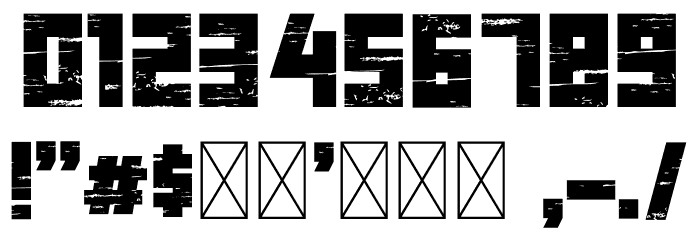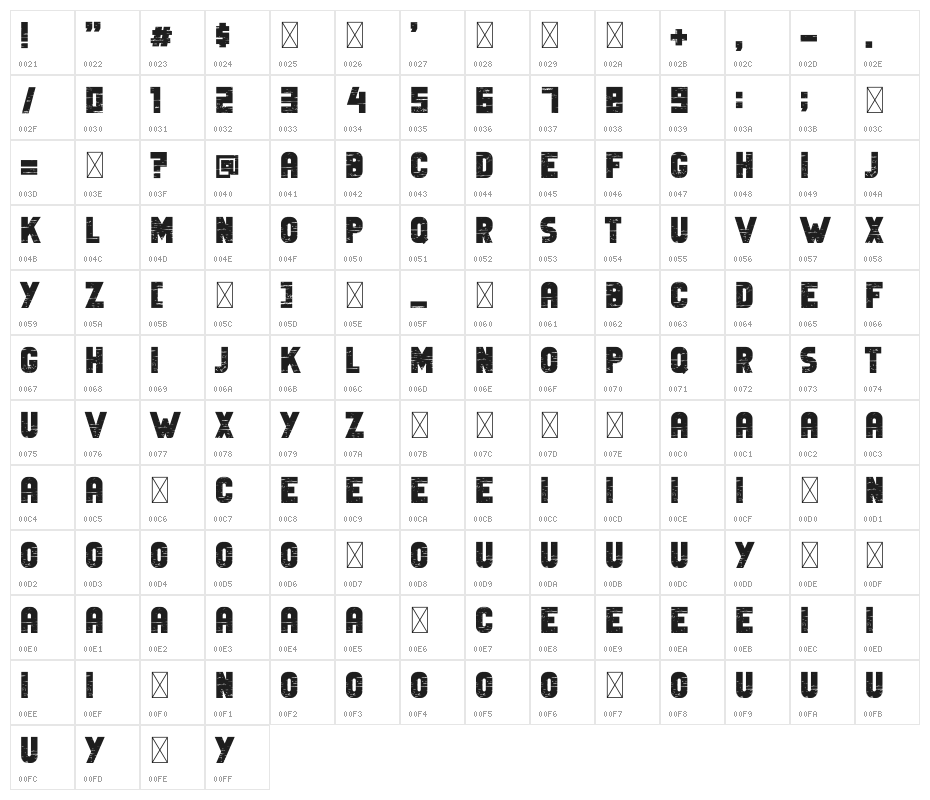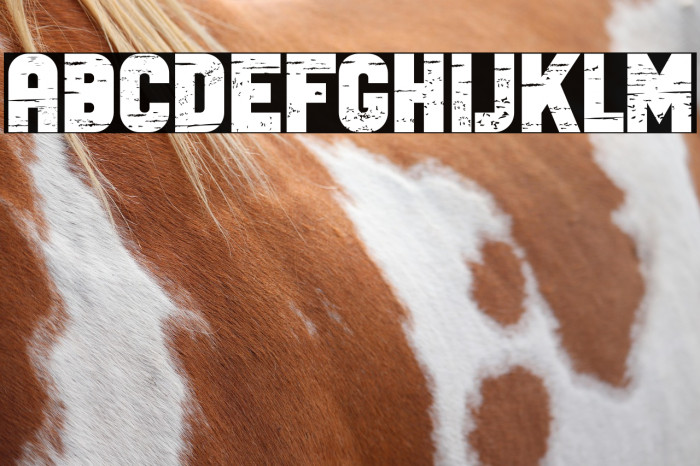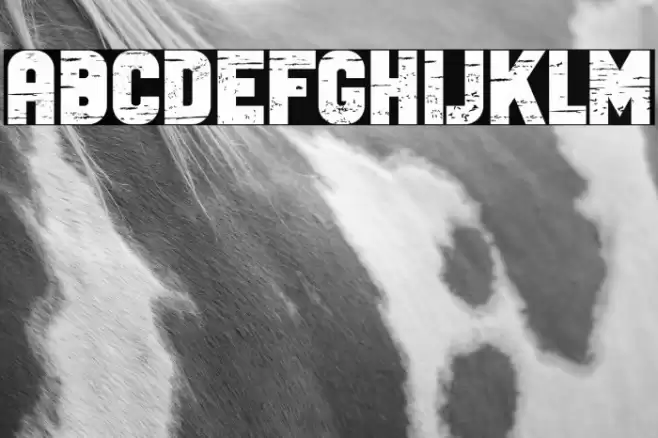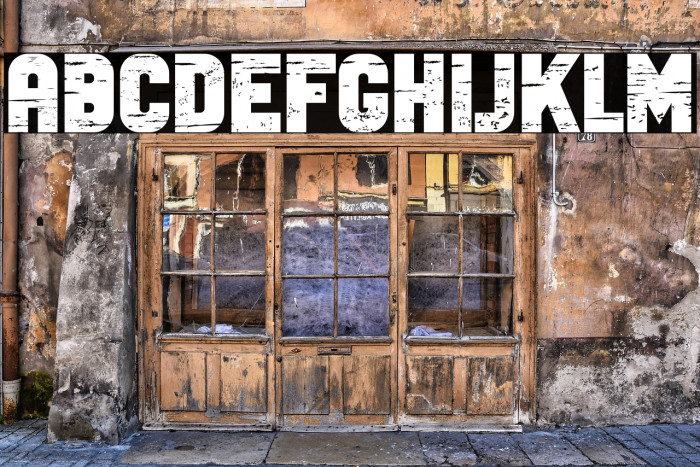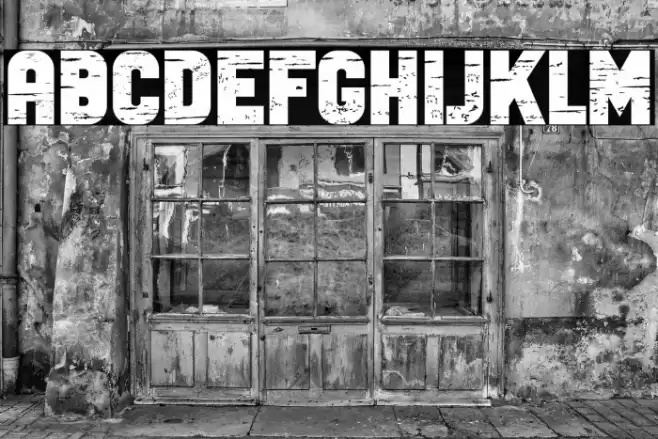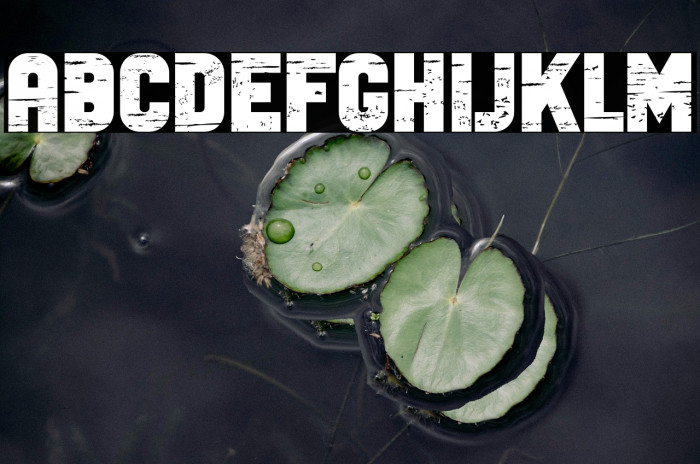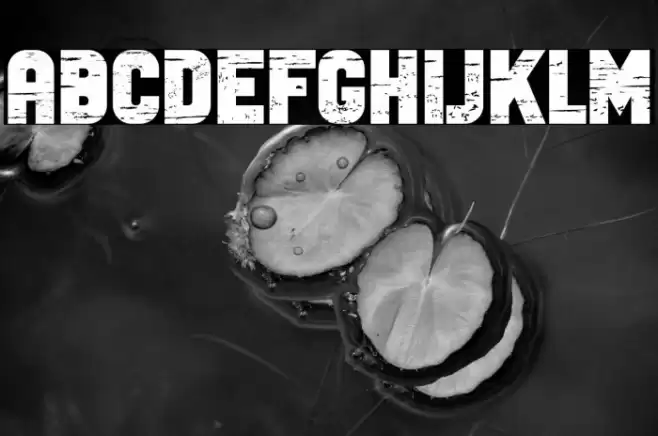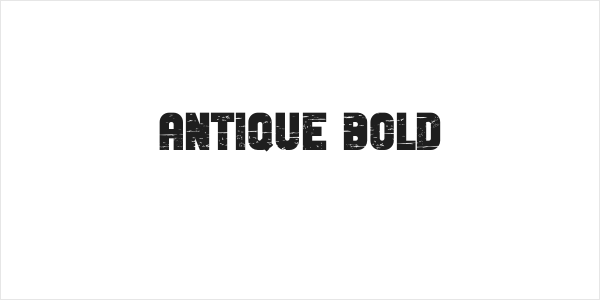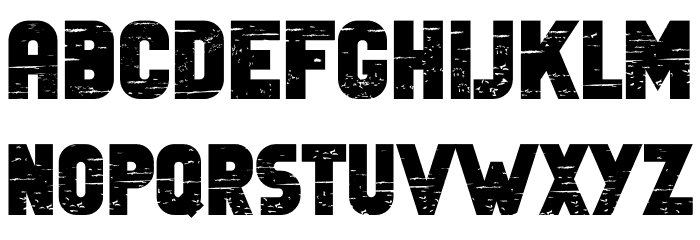
Antique Bold Font
Antique Bold Description
This font features a bold, distressed style with a vintage appeal. The characters are blocky and robust, with a weathered texture that gives them an aged, rustic look. The uppercase letters are prominent and commanding, while the numbers and special characters maintain the same rugged aesthetic. The font's design is reminiscent of old signage or posters, making it ideal for projects that require a touch of nostalgia or a gritty, industrial feel.
| Proposed Projects | Ideal for vintage posters, retro branding, album covers, or any design needing a rugged, industrial touch. |